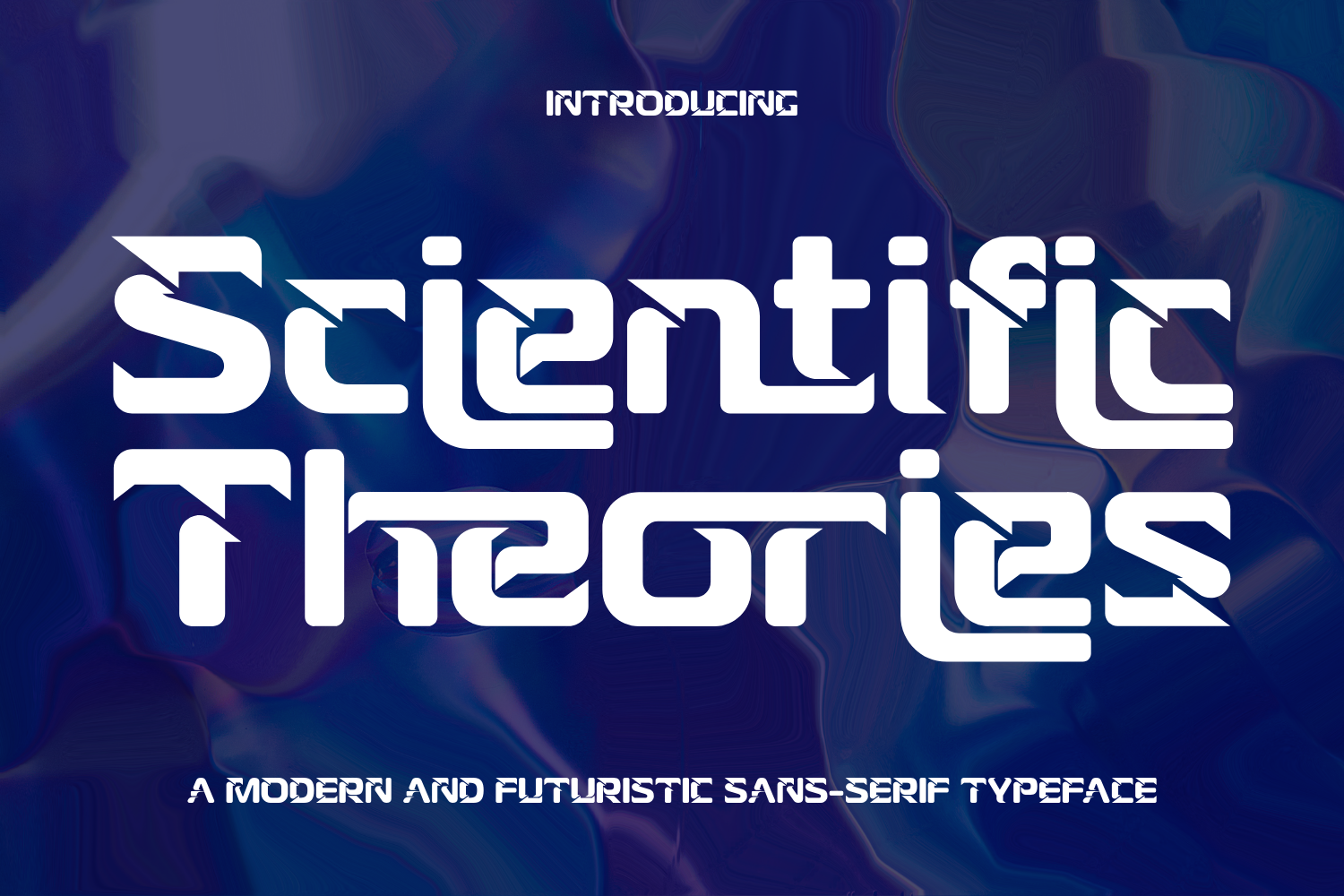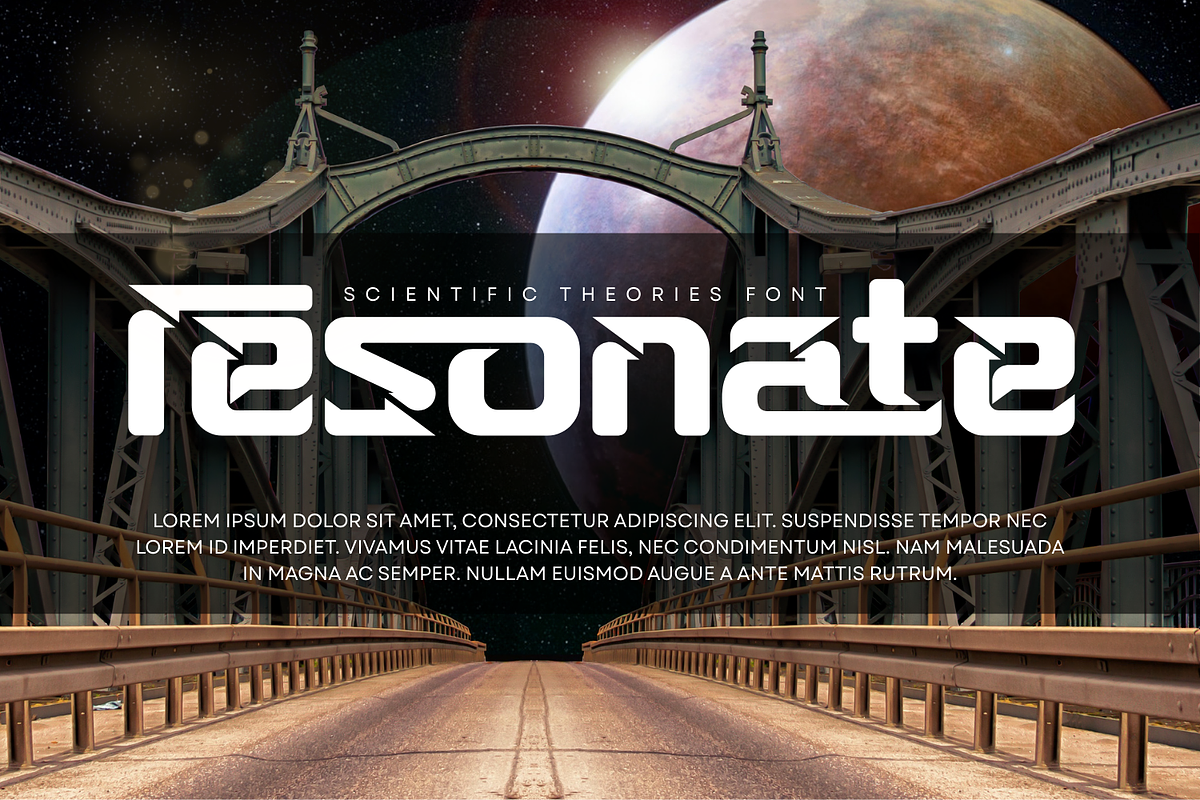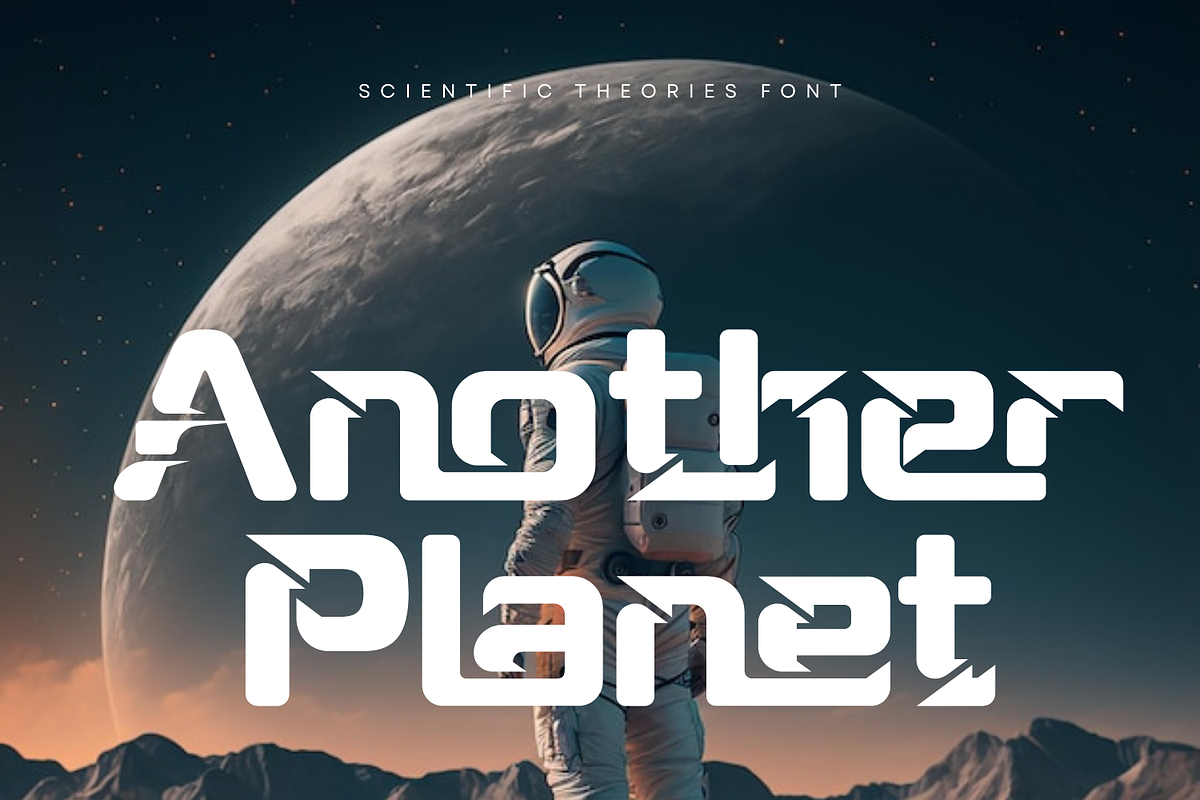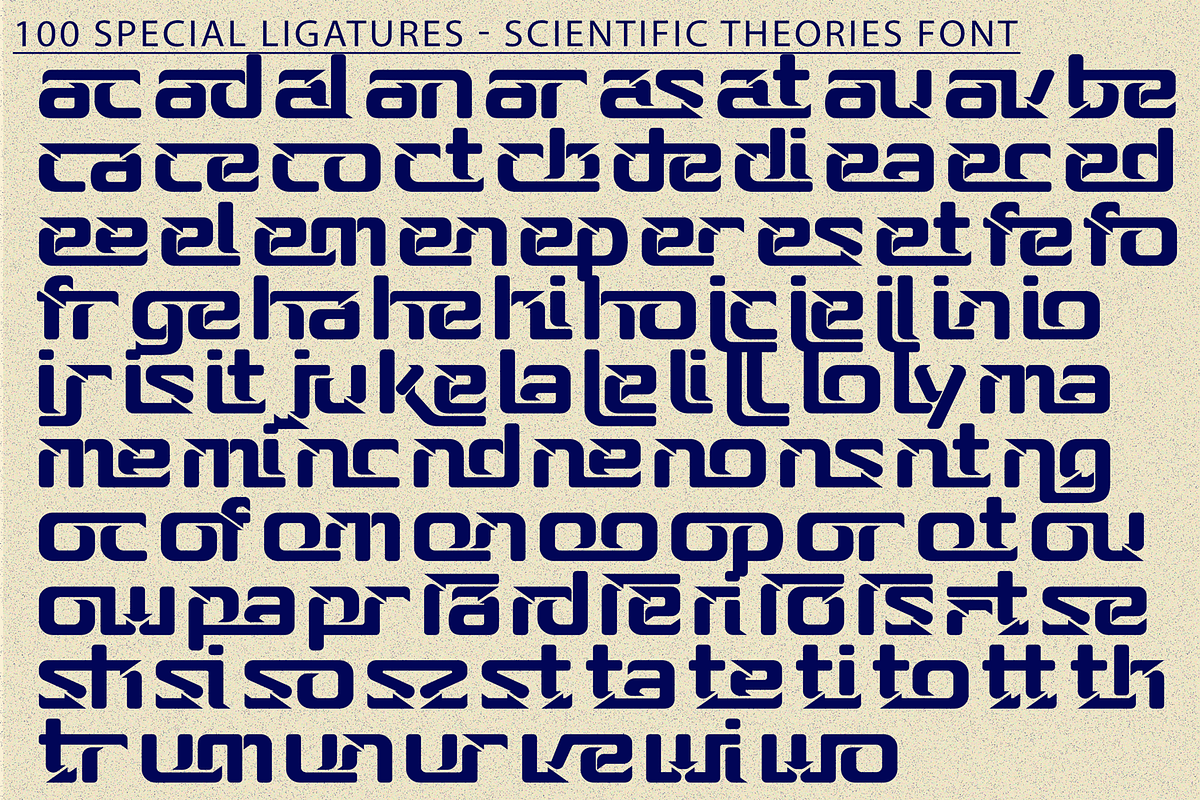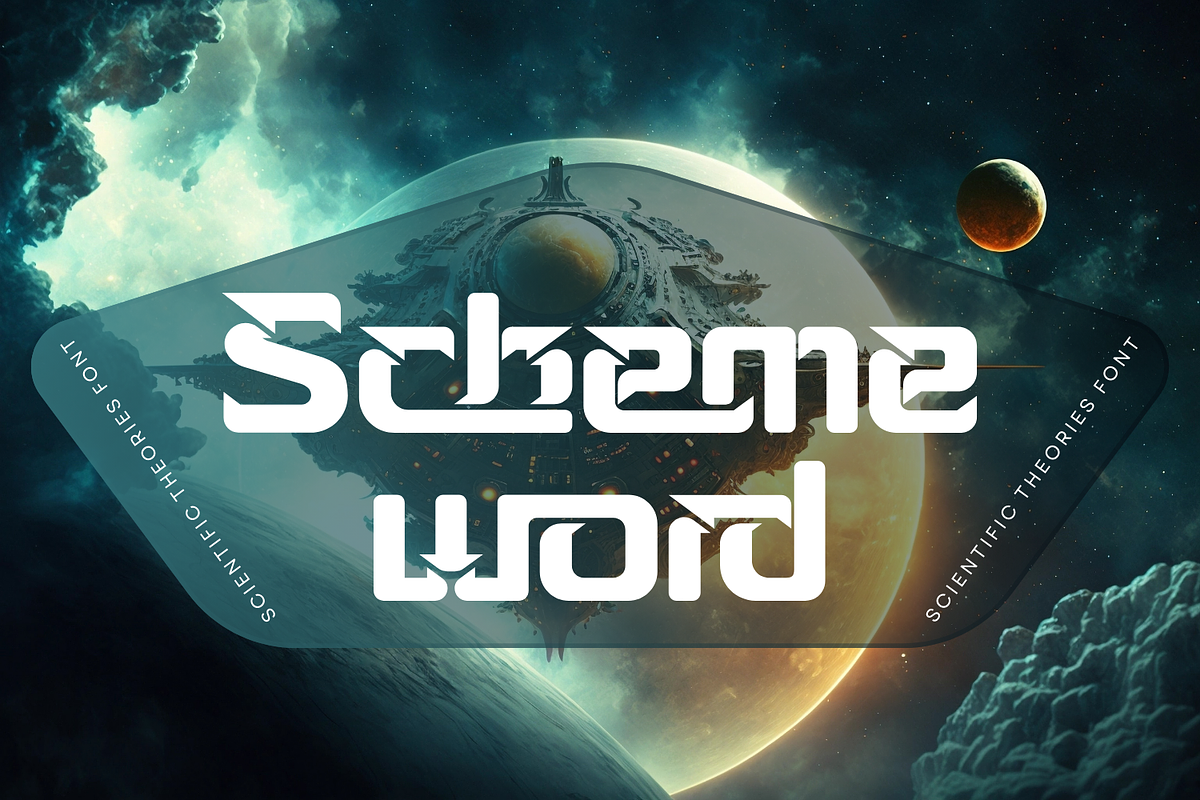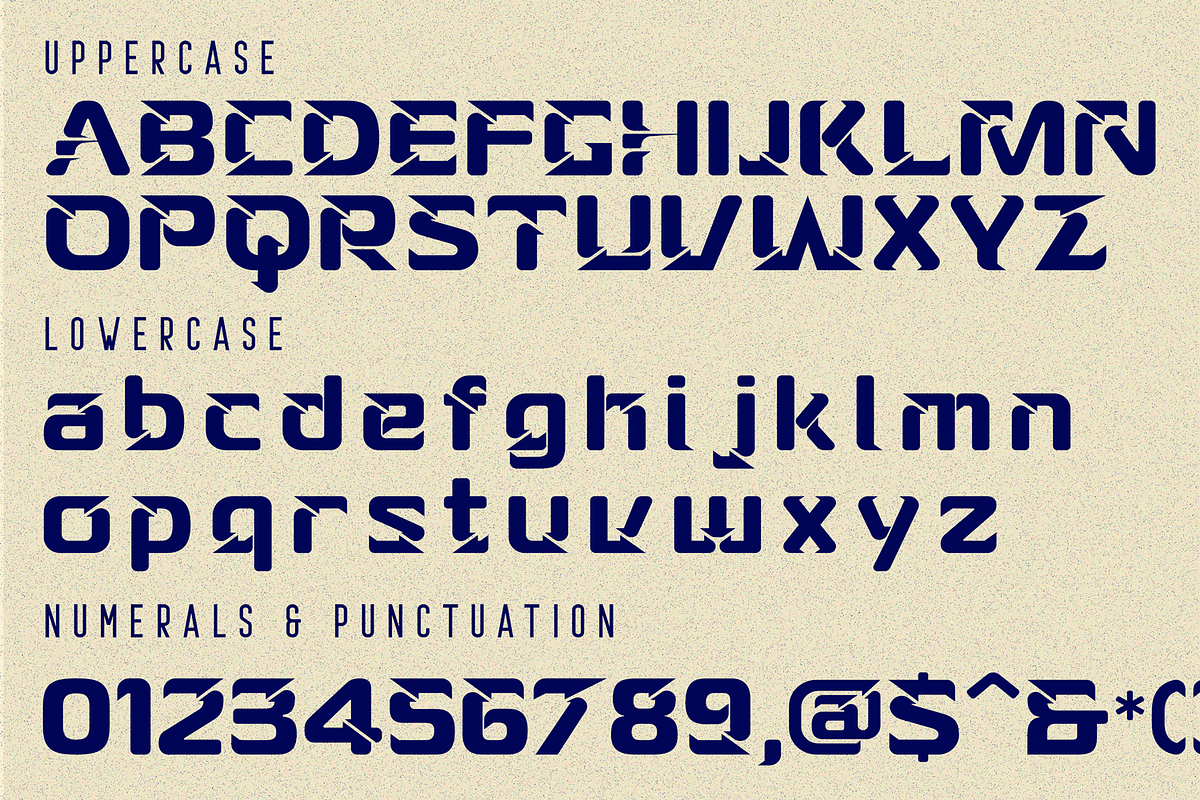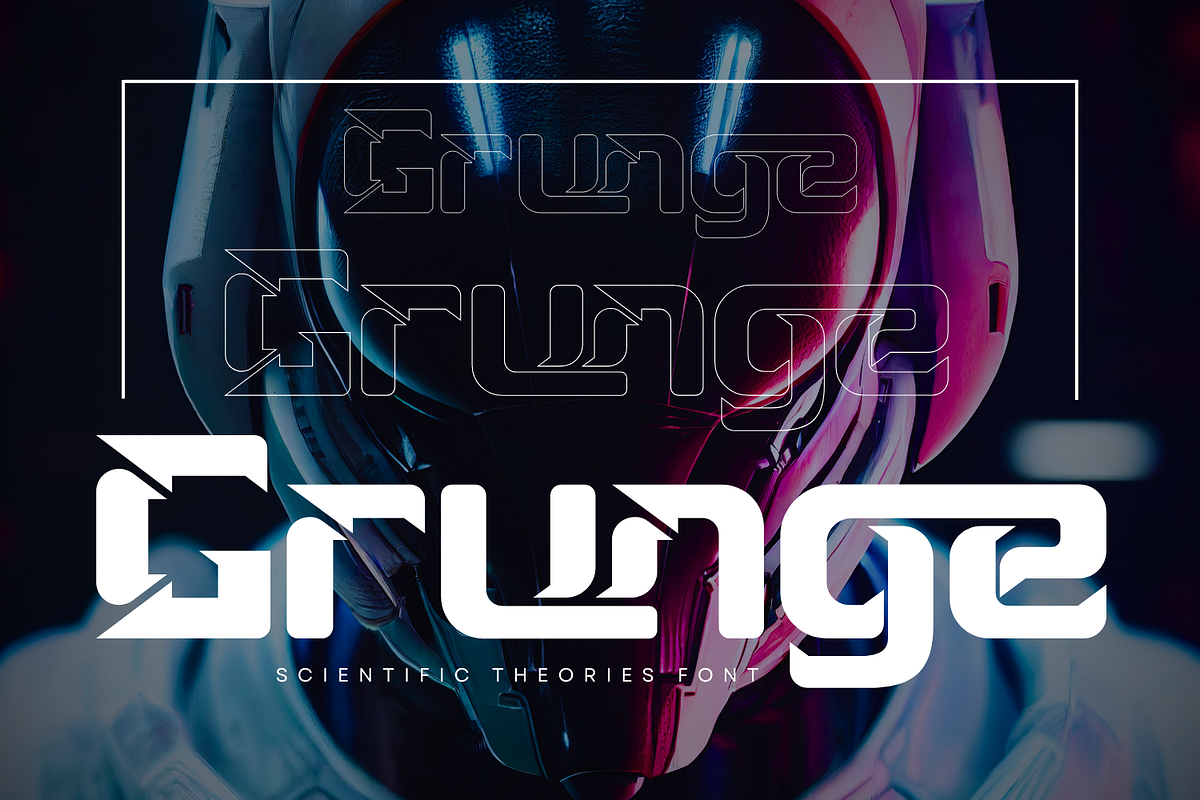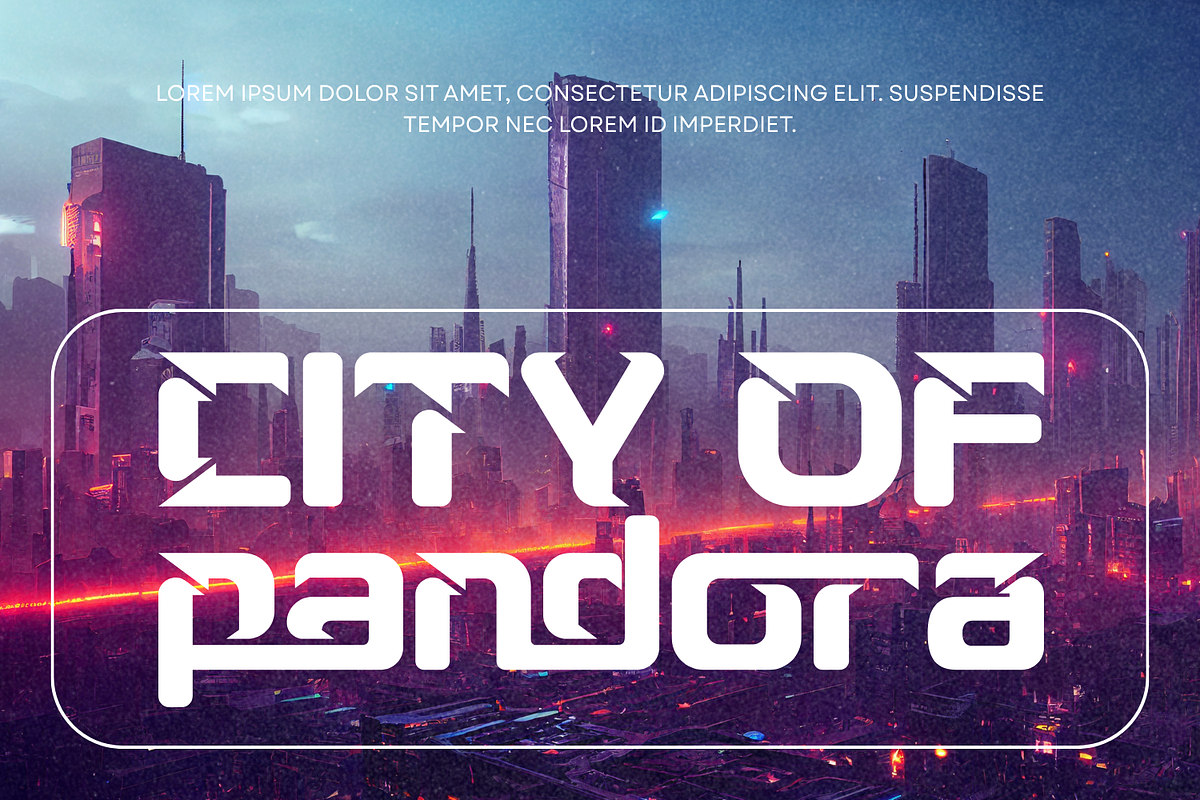
Scientific Theories - Cyber Font
Scientific Theories - Cyber Font, a revolutionary display font that merges the precision of scientific research with the bold aesthetics of a cyberpunk future. Defined by its iconic diagonal slashes and structural semi-serifs, this typeface is engineered for creators who want to push the boundaries of modern typography. Scientific Theories captures a unique "tech-noir" vibe, making it the perfect choice for high-end branding in the fields of robotics, aerospace, gaming, and digital innovation. Its sharp, aggressive terminals give your headlines a sense of motion and cutting-edge intelligence, while its balanced geometry ensures a professional, high-impact finish.
🔤Features:
- Uppercase & Lowercase Letters
- Around 100 Special Ligatures & Alternates
- Accented Characters for multilingual support
🔤About 100 ligatures combined with Stylistic Alternates Font:
ac ad al an ar as at au av be ca ce ch co ct de di ea ec ed ee el em en ep er es et fe fo fr ge ha he hi ho ie ic il in io ir is it ju ke la le li ll lo ly ma me mi nc nd ne ng no nt ns oc of om on oo op or ot ou ow pa pr ra rd re ri ro rs rt se sh si so ss st ta te th ti to tr tt um un ur ve wi wo